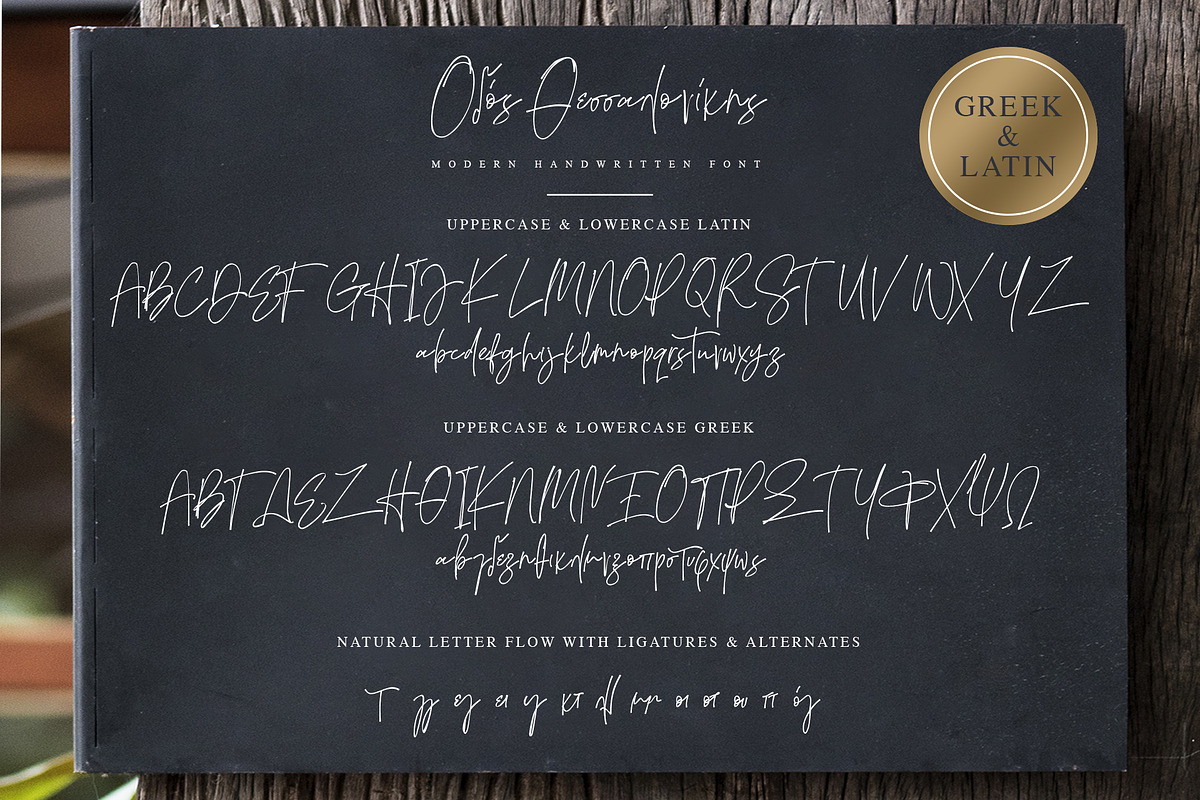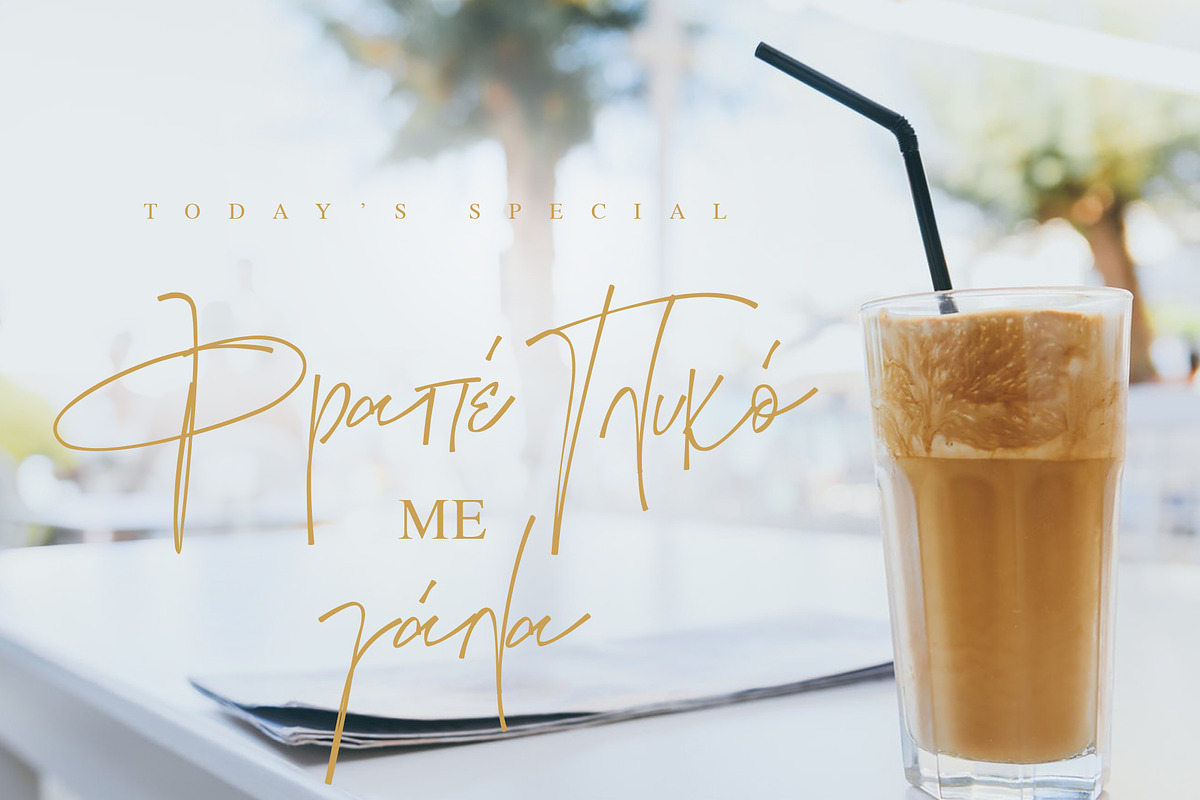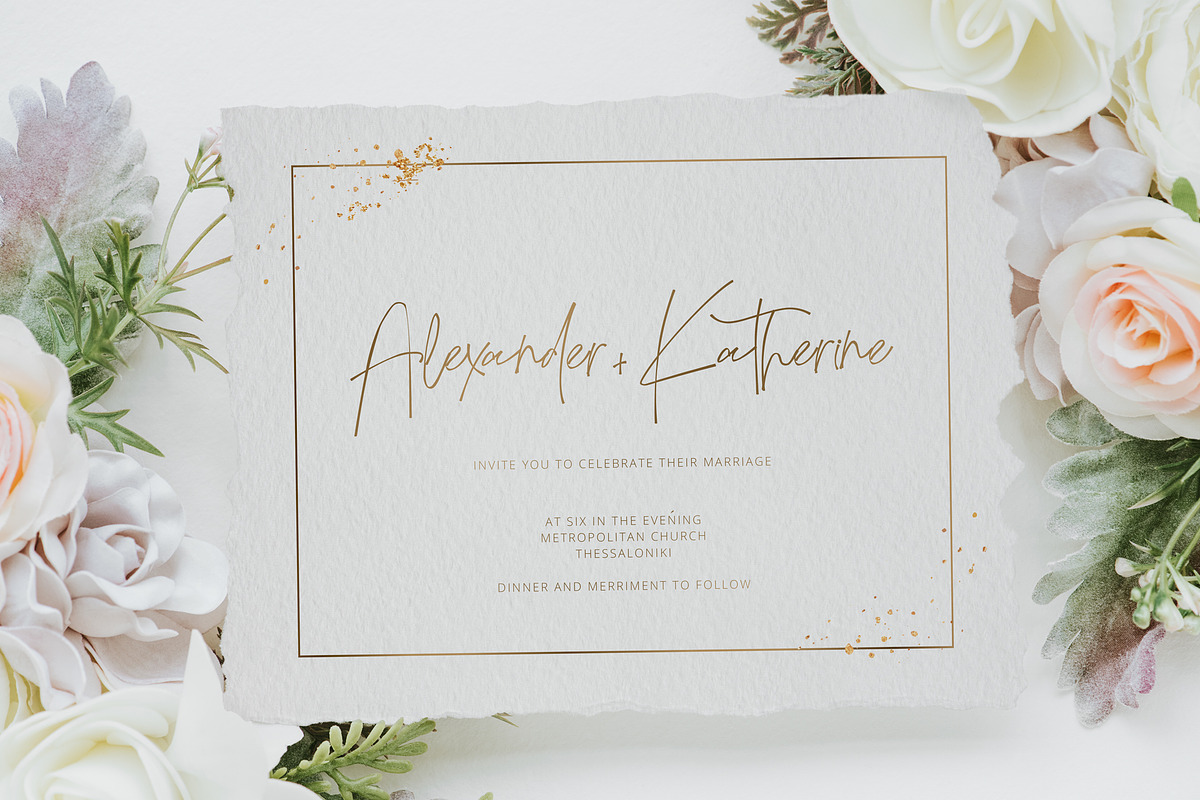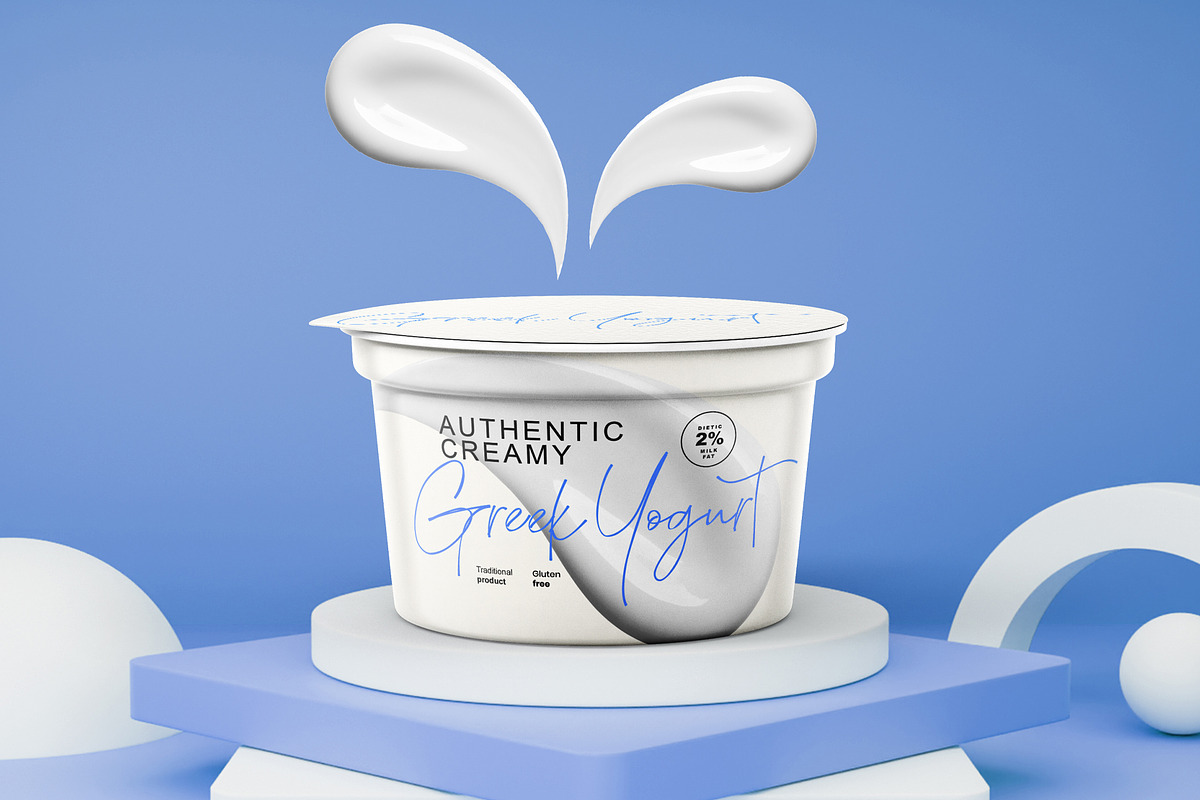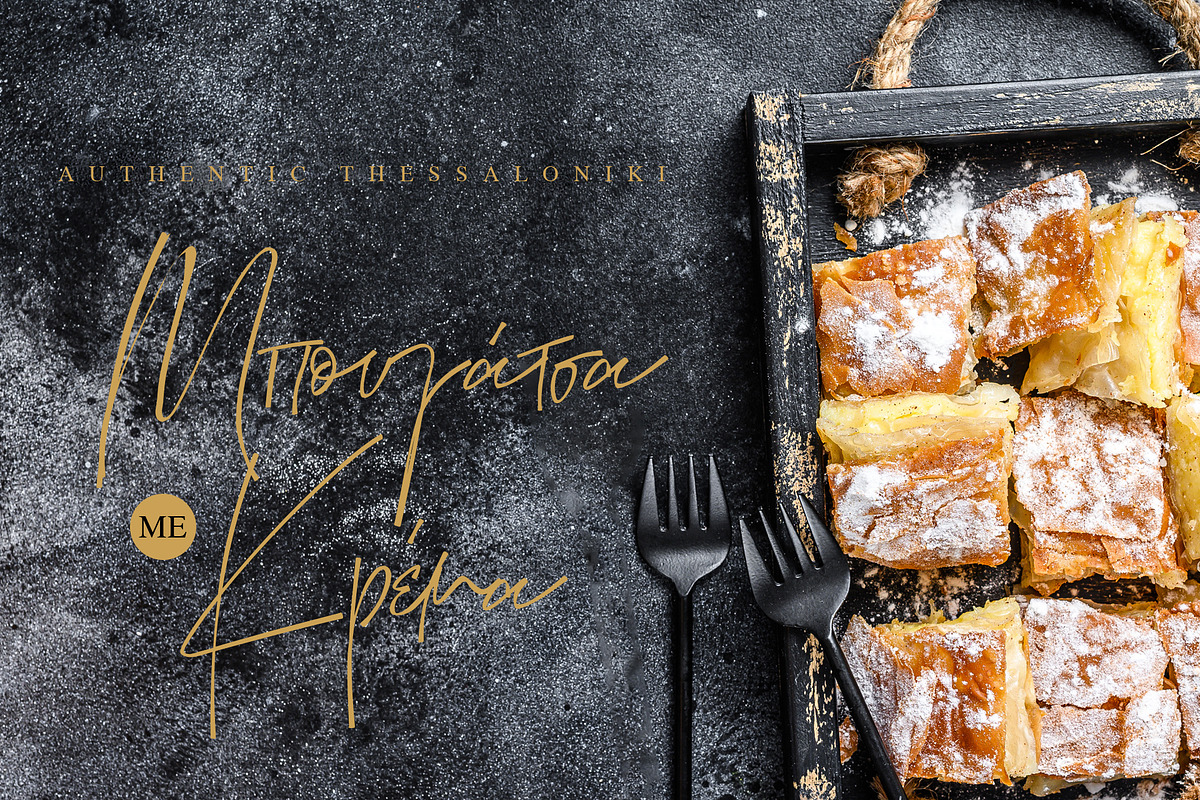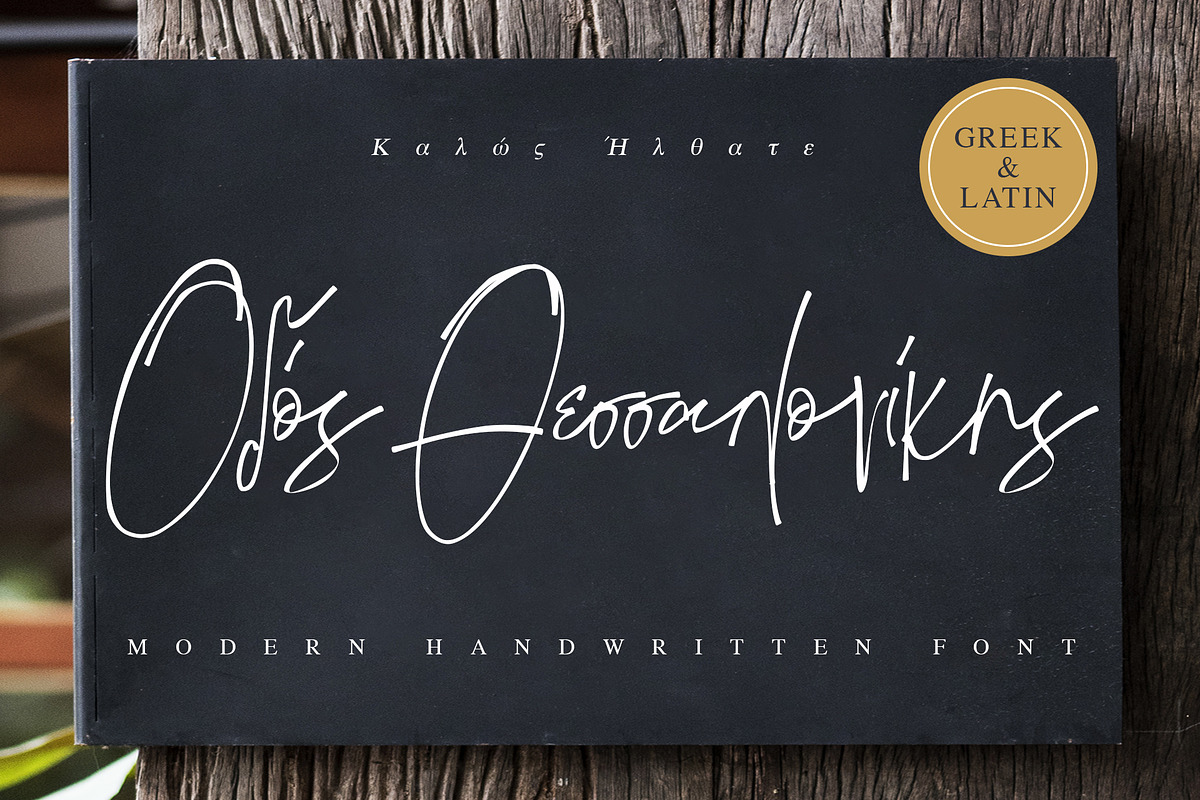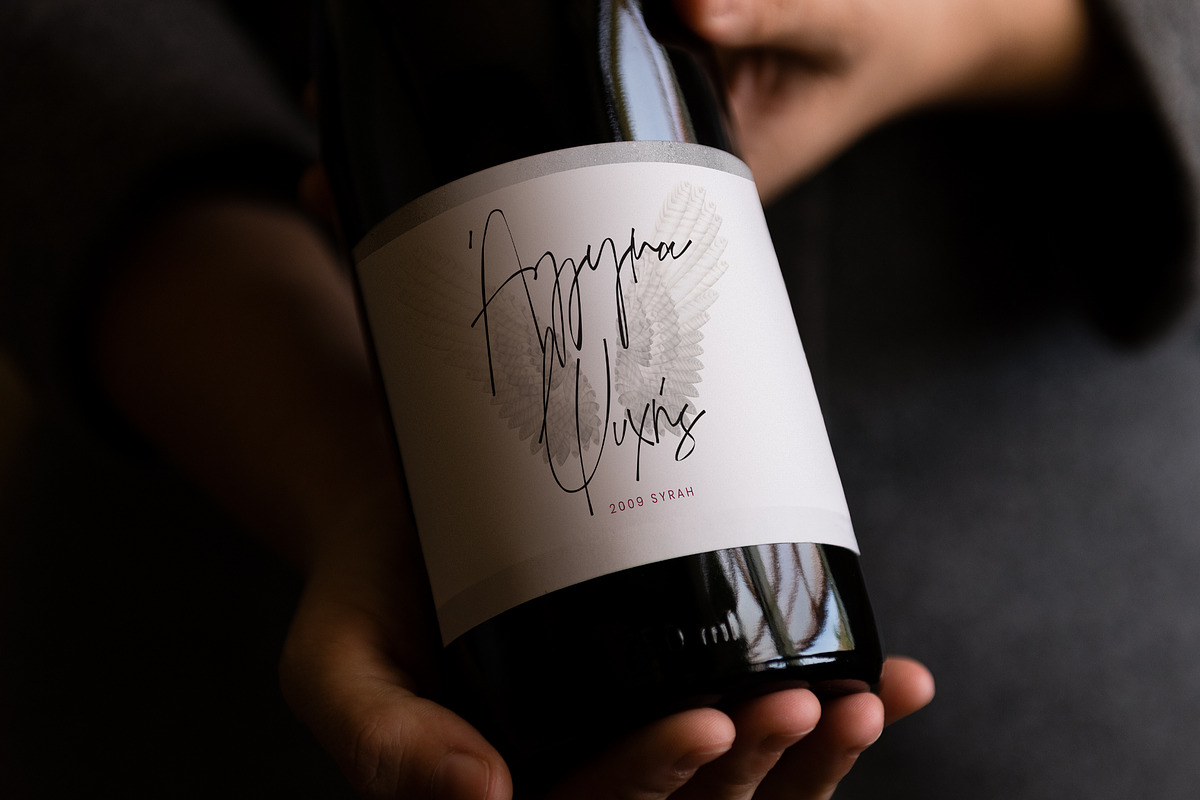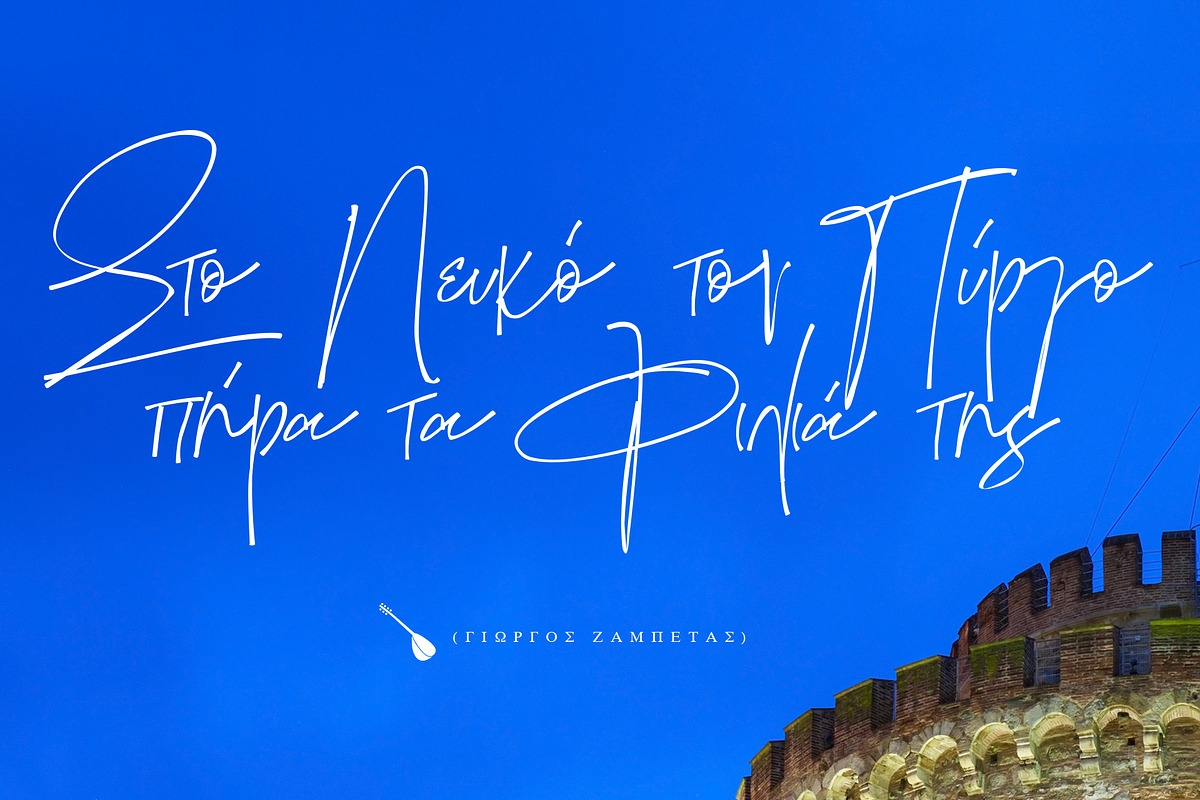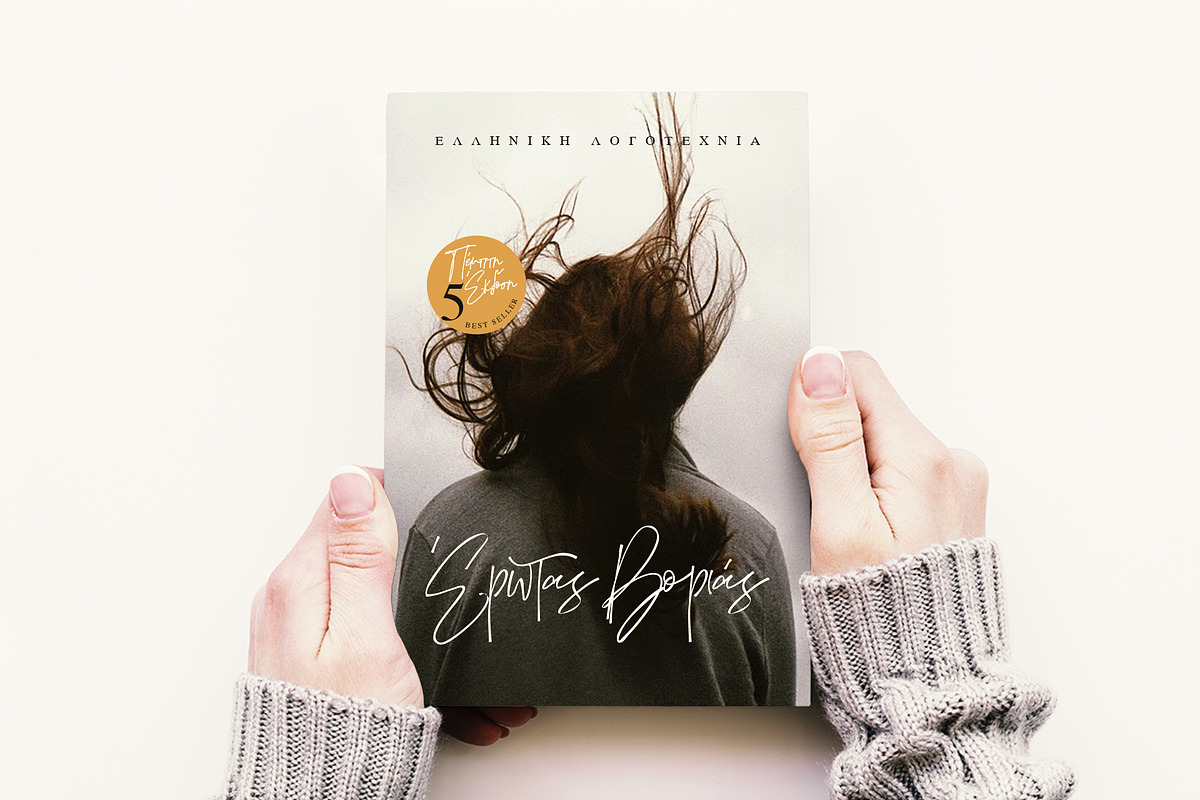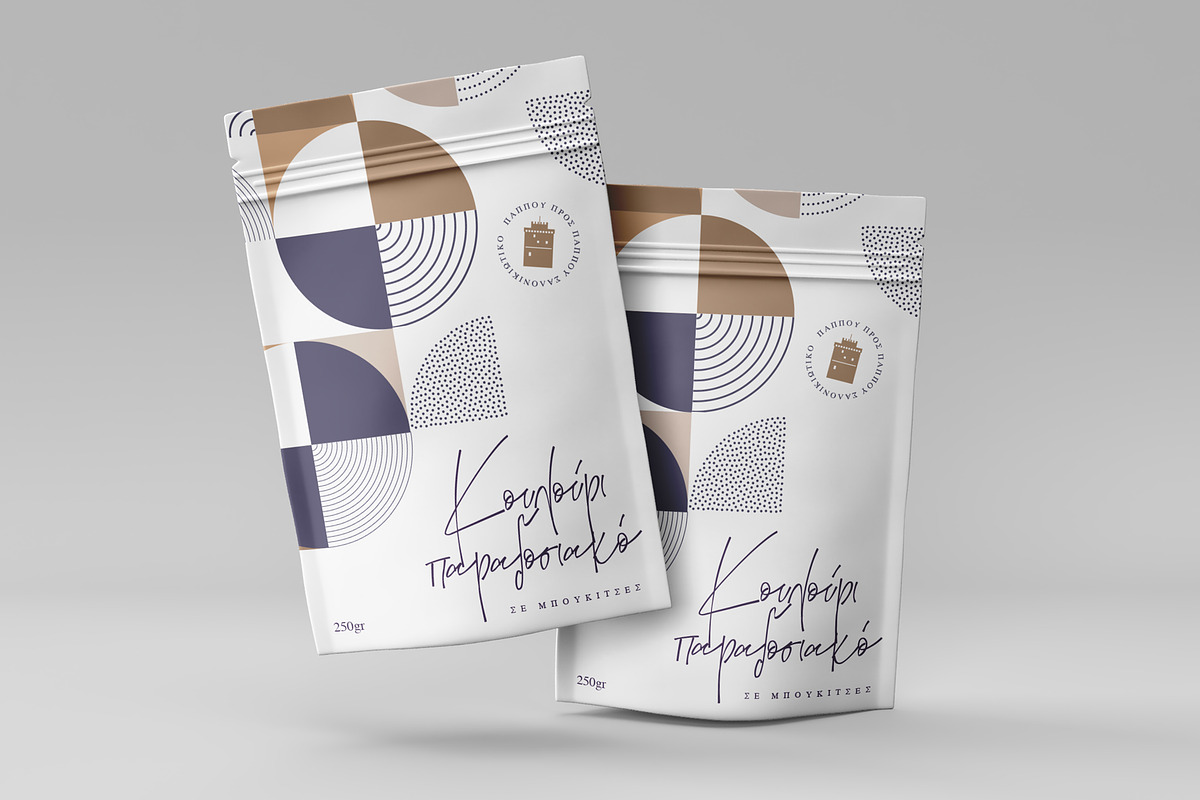
Thessaloniki Street
Thessaloniki street is a modern handwritten font, ready to serve you with amazing graphics. It is the one you looking for in order to create branding, wedding invites packaging or whatever you come up to.
Thessaloniki street includes a full set of uppercase and lowercase letters, numerals, and punctuation. The Greek version of the font comes with a bunch of ligatures for more authentic hand-lettered style.